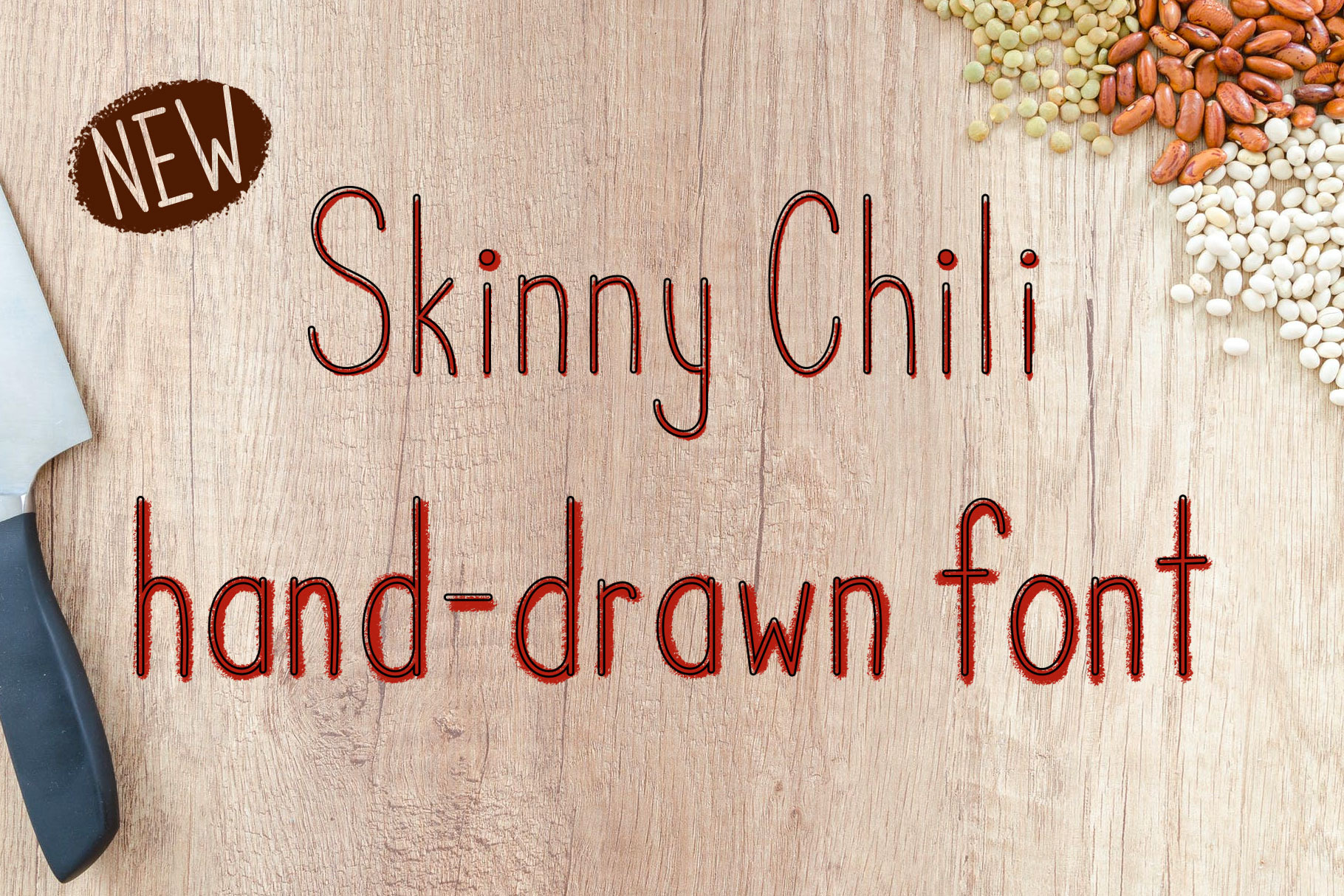
Skinny Chili font
Hand-drawn font by Illustrator Phil Scroggs. The clean simple lines are hand drawn with vectors using Adobe Illustrator. The thin lettering has a hand-made flavor, but it's quite tight and professionally prepared. See more illustrations and lettering on Instagram - @phillustrations